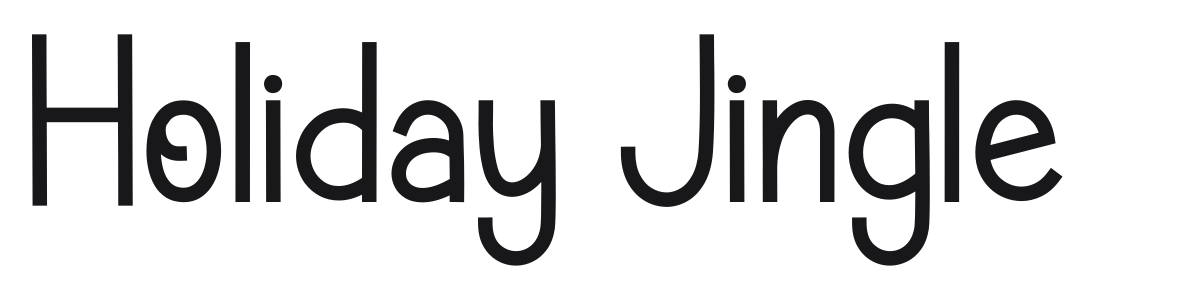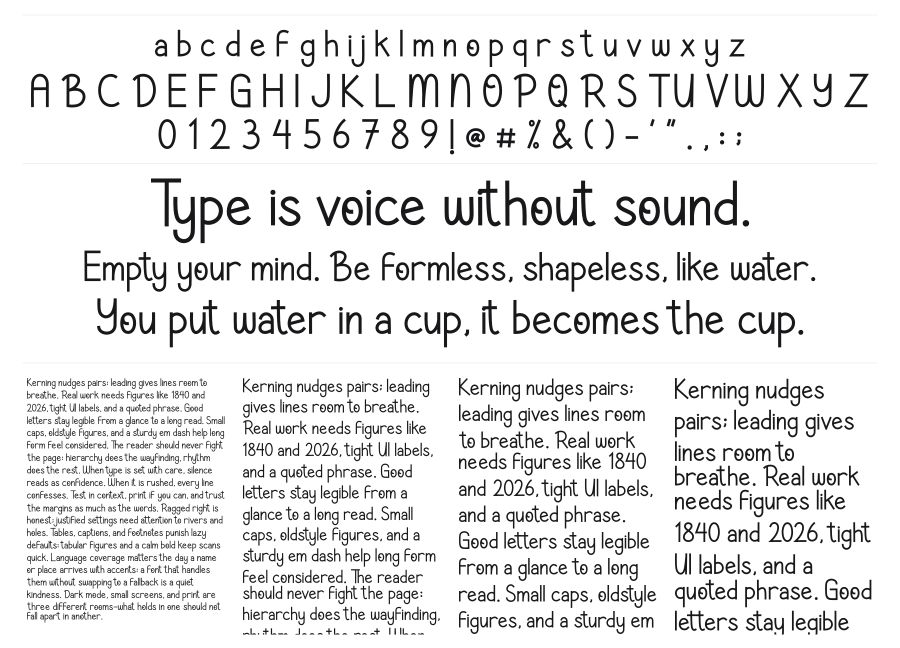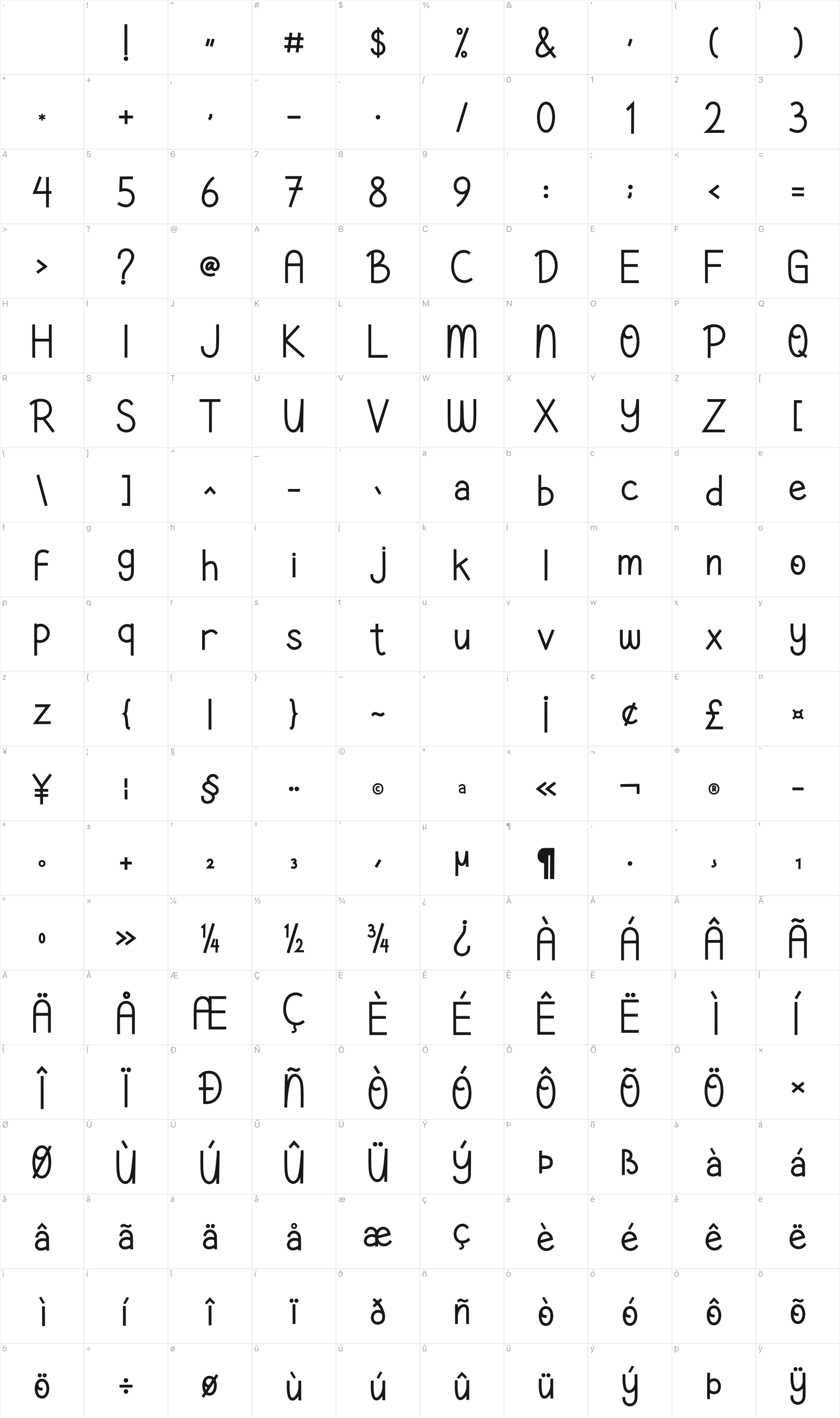
Holiday Jingle
Holiday Jingle is a light, rounded sans-serif with a playful bounce built into its construction. Letters shift subtly in height and some characters curl into small loops, creating a handcrafted warmth without going fully script. It reads festive and friendly without leaning on overt holiday clichés.